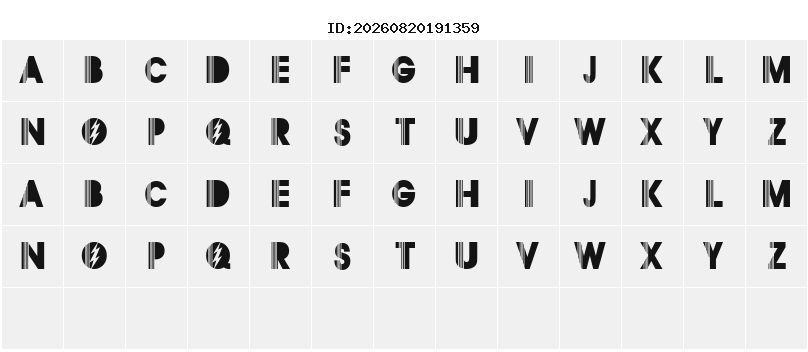
Segurl 1.0 Preview
About Segurl 1.0.ttf
Segurl 1.0.ttf is a modern, elegant sans-serif font designed for ultimate readability and visual harmony. Perfect for branding, headlines, web design, and print materials.